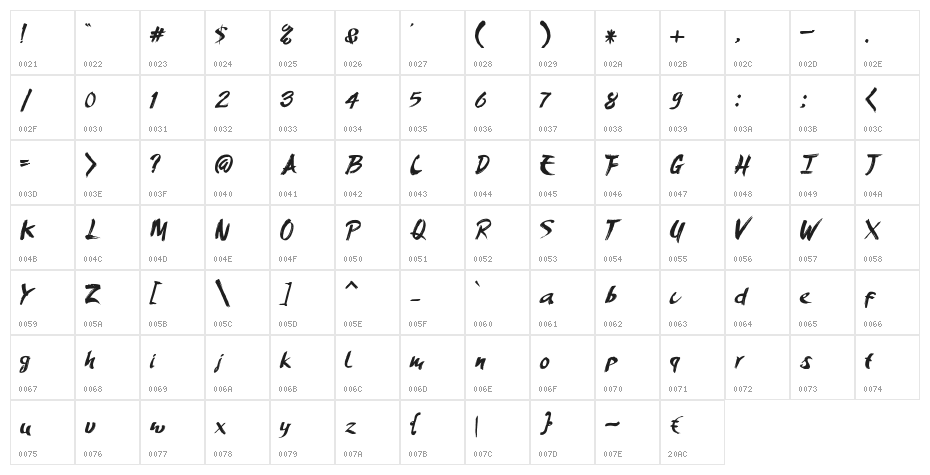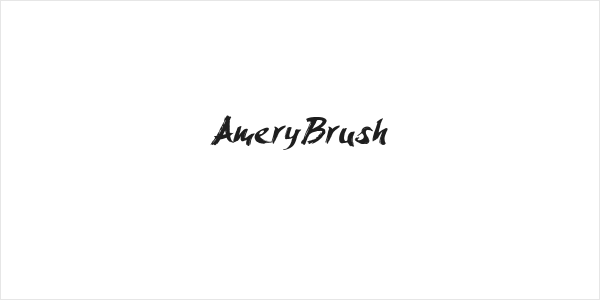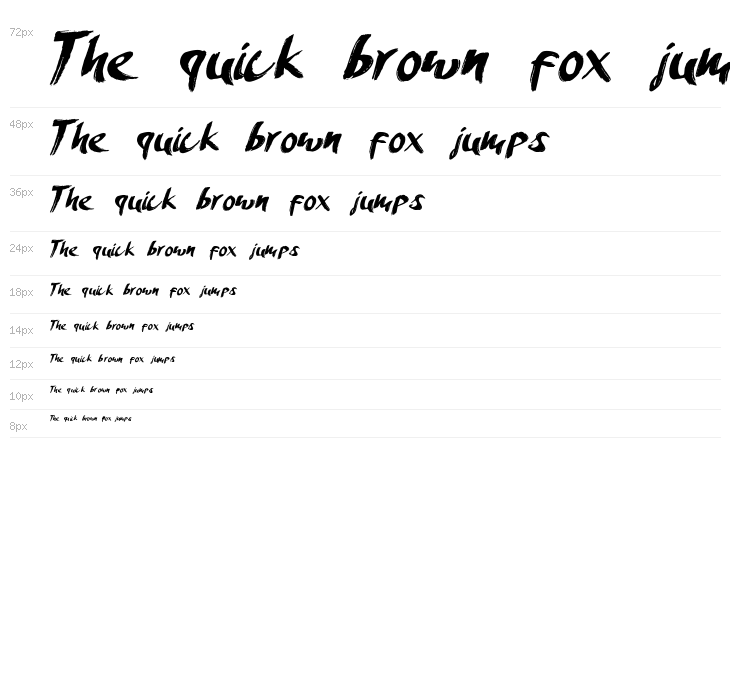
AmeryBrush Font
AmeryBrush Description
This font exudes a dynamic and energetic feel, characterized by its bold, brush-like strokes that convey a sense of movement and fluidity. The uppercase letters are robust and commanding, while the lowercase letters maintain a consistent flow, enhancing readability. The numbers and special characters follow the same expressive style, making them stand out. The overall appearance is reminiscent of hand-painted signage, giving it a personal and artistic touch. Its unique style makes it suitable for projects that require a creative and informal vibe, such as posters, invitations, and branding materials.
| Proposed Projects | Ideal for creative projects like posters, invitations, and branding that require an artistic touch. |